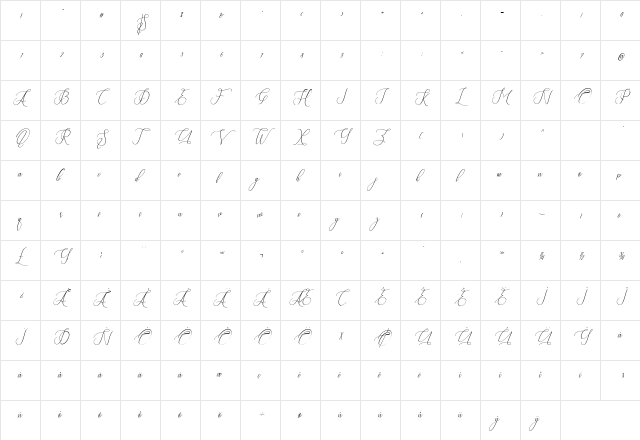
Fantastic Italic
Design Context for Fantastic Typeface
Fantastic is a composed and adaptable typeface that performs quietly and consistently across a wide range of design contexts. Its italic angle brings a sense of urgency and motion to the letterforms.